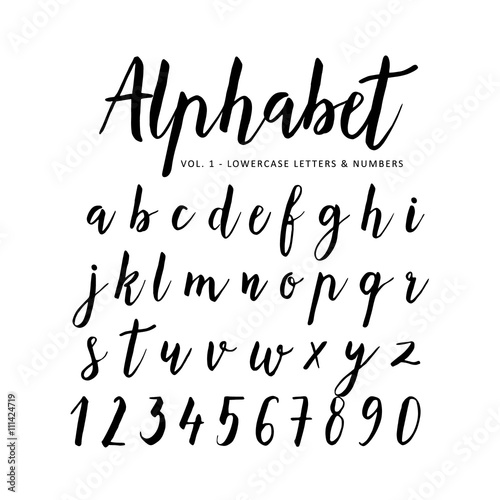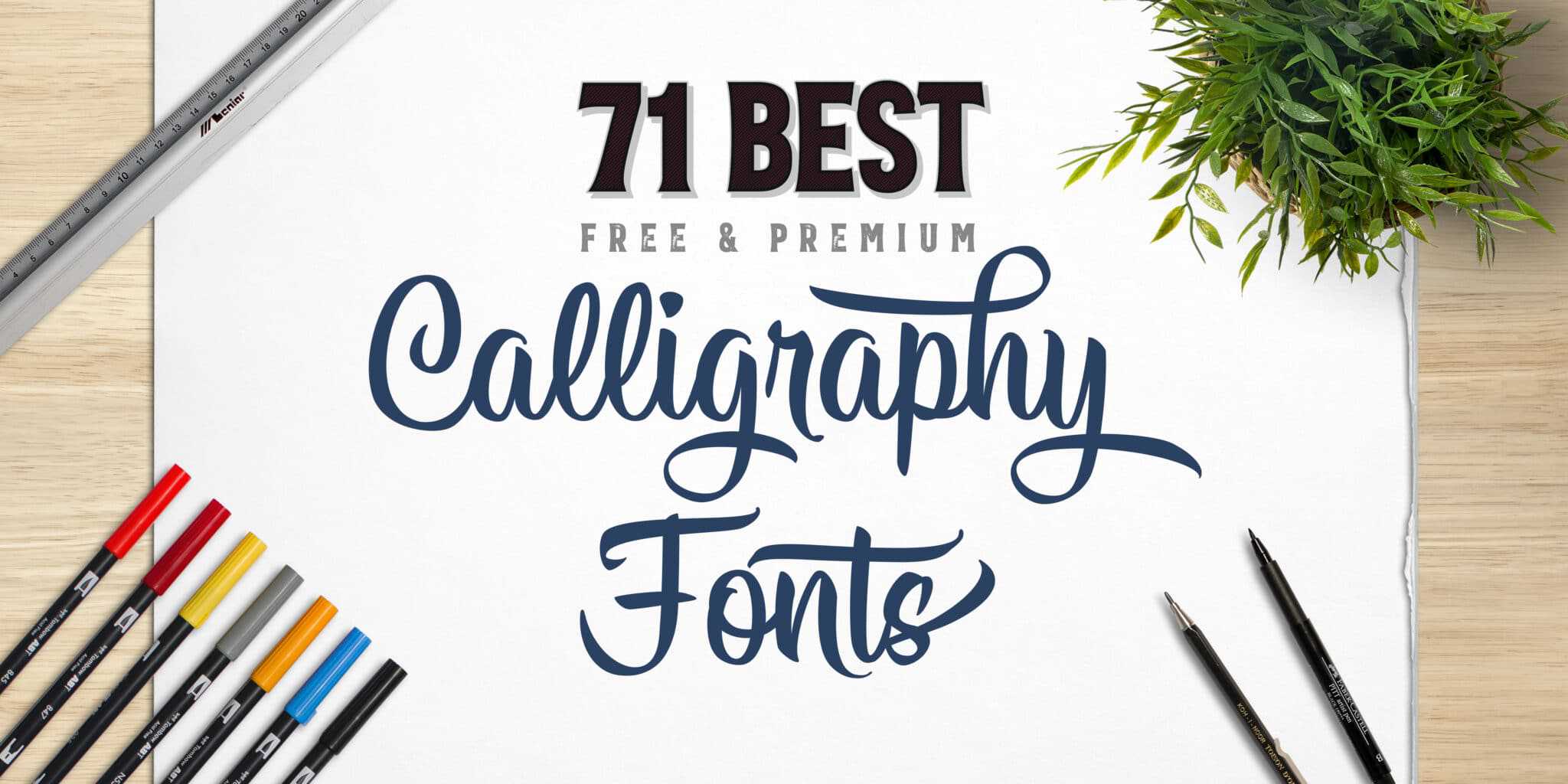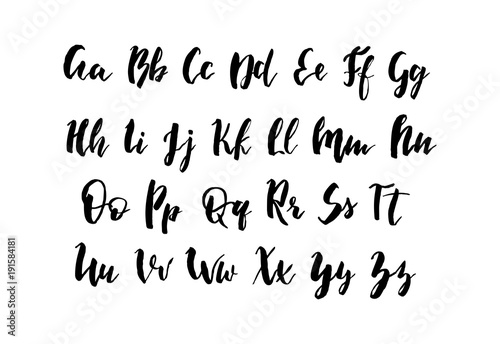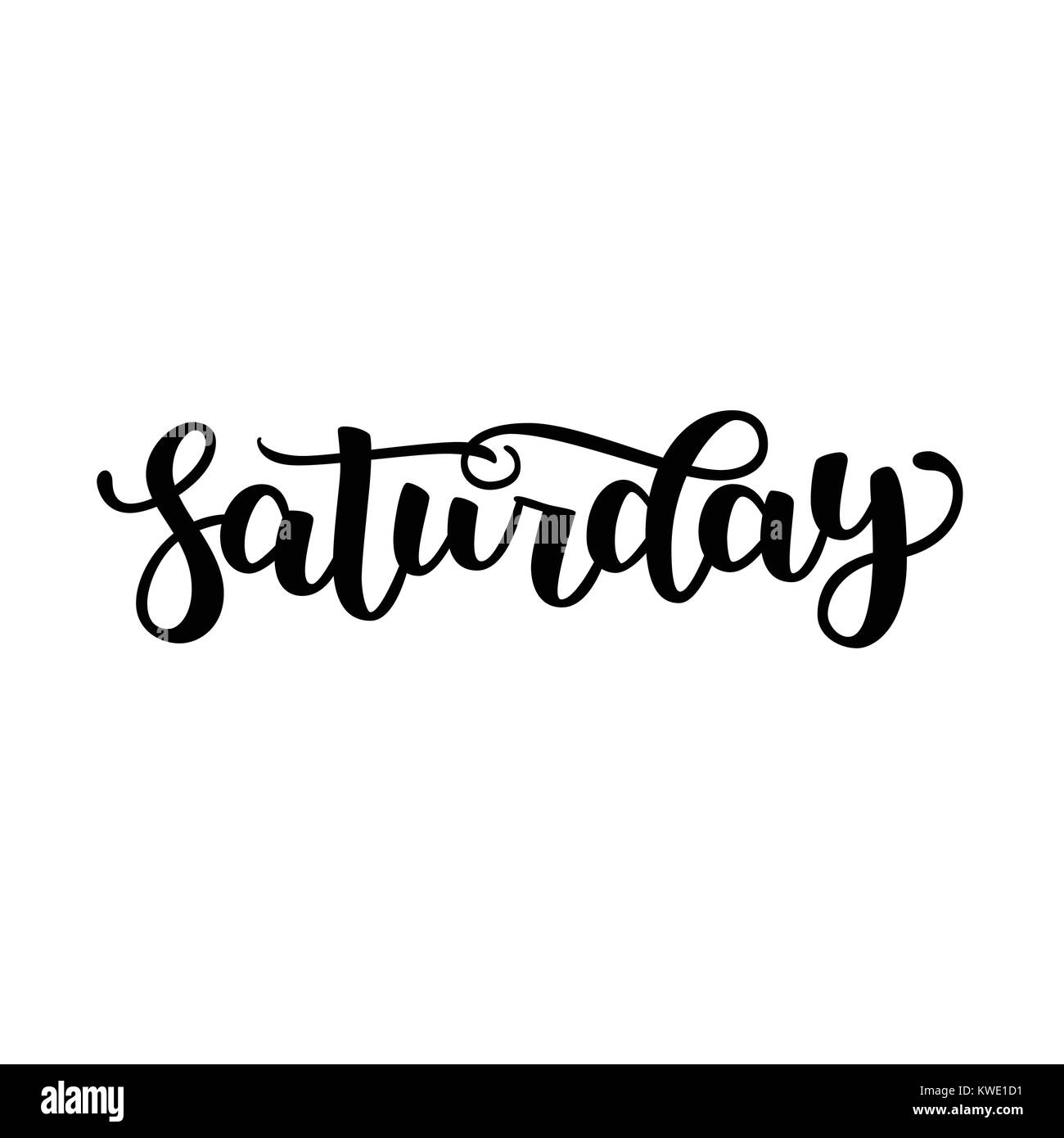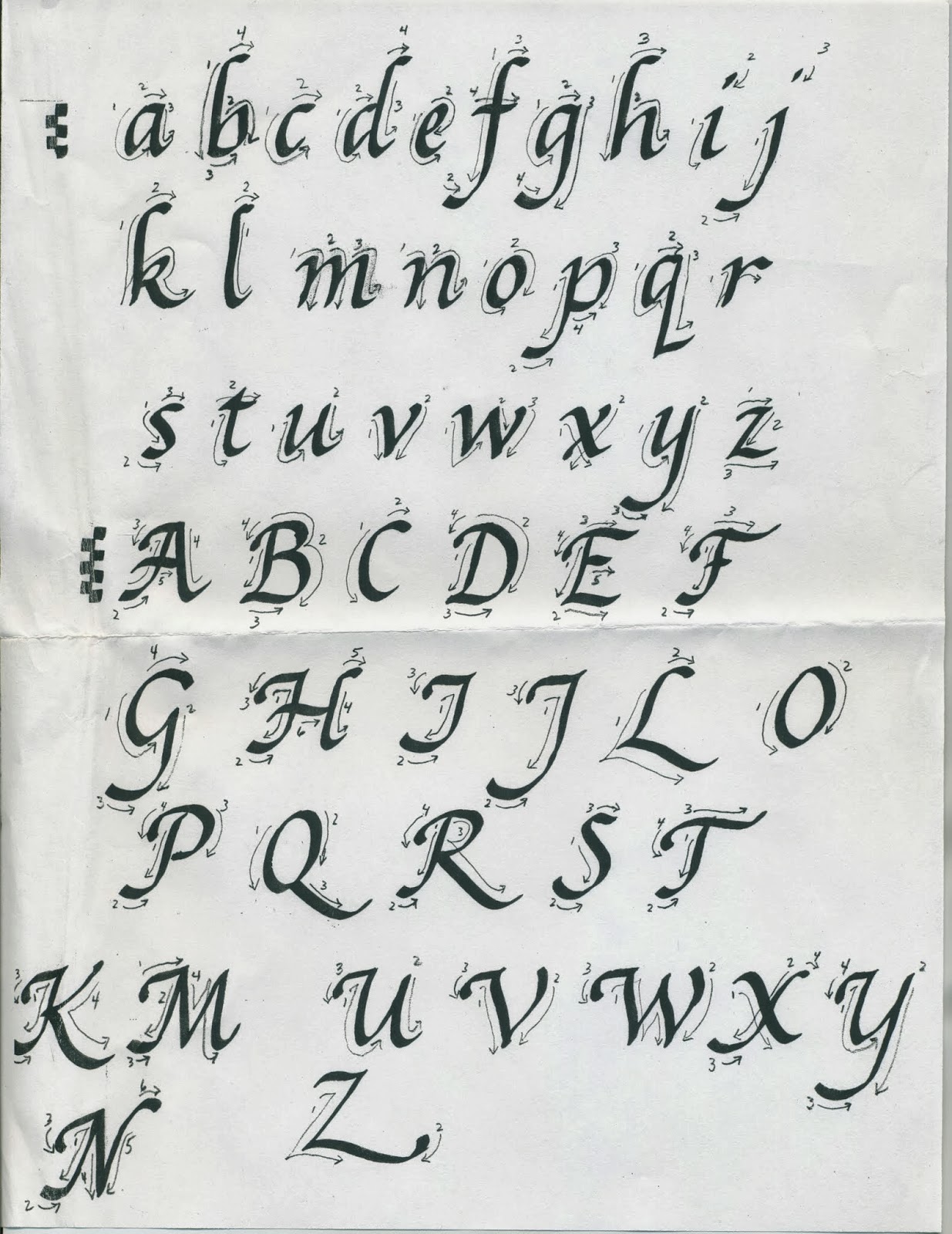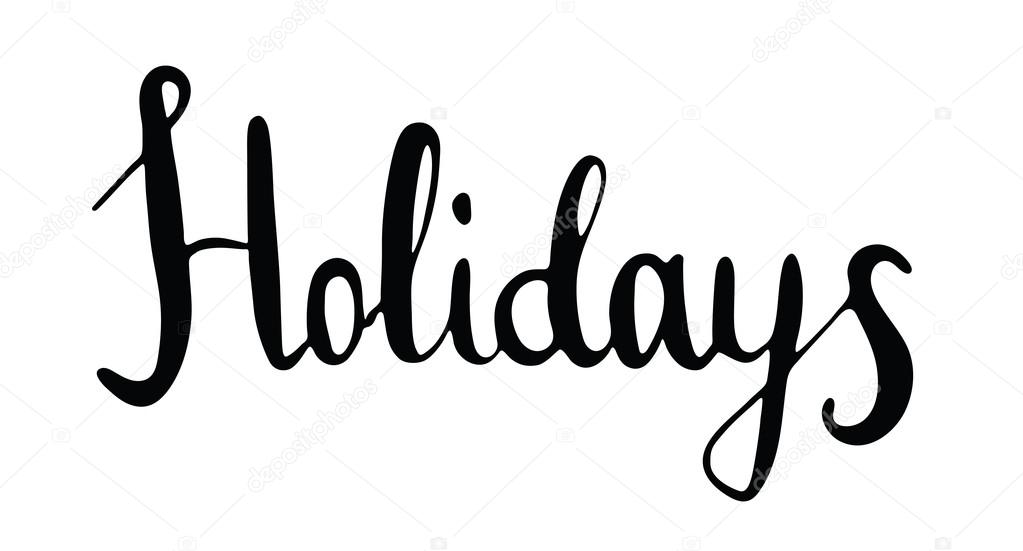
Burgues Script created by Alejandro Paul is a typical font family of calligraphy style. Muyao-Softbrush Open Source Font Simplified Chinese Fonts.
Click to find the best 377 free fonts in the Ink style. I realized there were two things I was unwilling to compromise. Calligraphy is an ancient writing technique using flat edged pens to create artistic lettering using thick and thin lines depending on the direction of the stroke.
Nelson the scriptina pro is a beautiful font crafted to fit any design layout. The height of calligraphy was reached in the middle age where monks developed the narrow writing style called gothic allowing more words to fit on a single line as paper was expensive at the time. Food especially Sweets Coffee Package Fashion Beauty etc.
According to the designer the font is an ode to the late 19 th century American calligrapher Louis Madarasz known as the most skillful penman the world has ever known. It usually involves a nibbed pen or brush. The writing is readable but is usually extravagant and embellished with flourishes.
Beautiful Ink brush Calligraphy Font Style -Simplified Chinese Fonts. Calligraphy fonts are widely used in wedding event invitations original logo design religious art films TV etc. Text Effects - Create font art - fonts for android.
Sweet Ink Font Calligraphy - iFontsxyz Sweet Ink Font Calligraphy Stylish and Elegant Sweet Ink font can be used at many areas such as. Calligraphy Fonts Calligraphy is an artistic writing style where the pressure is varied to create thick and thin lines all in a single stroke. Cape Arcona Type Foundry.
Celistyne by Calligraphy Fonts. With our free calligraphy generator you can write anything using 18 different calligraphy fonts without downloading any font to your computer. That is where a hand lettering generator comes in handy.
Lamar pen is a stunning calligraphy font designed by Mirabeau Buonaparte Lamar is a fascinating style with words combining in an elegant and stylish way. RenDong Yang Bamboo stone -Semibold Open. Calypsoka by Octotype Category.